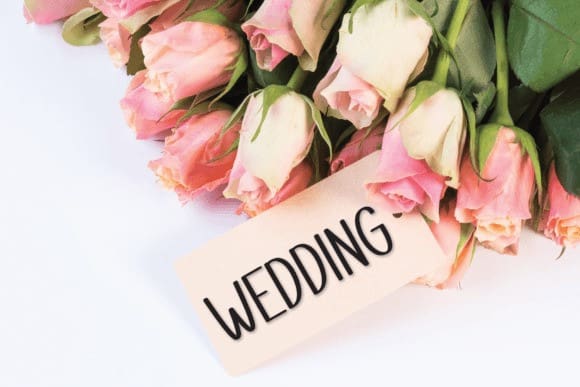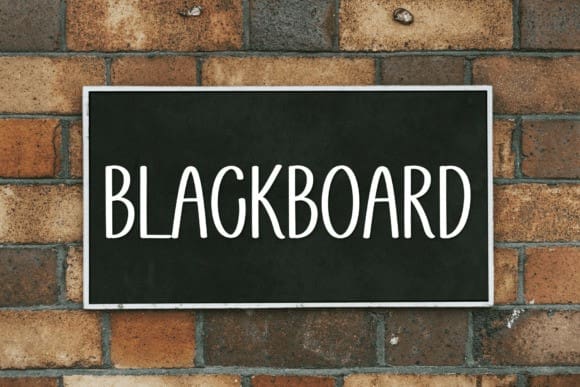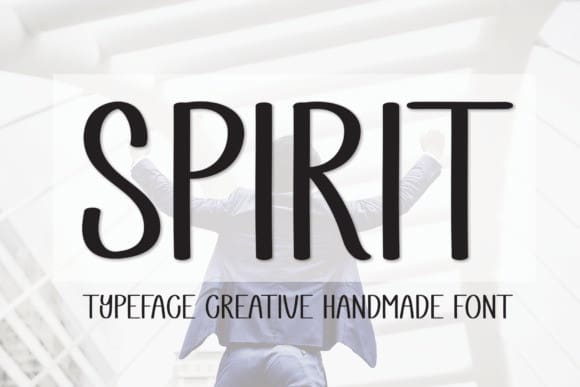
Spirit Hand Font
Spirit Hand Font, is a cool and relaxed handwritten font. This versatile font has a wide spectrum of applications ranging from greeting cards to headlines and is guaranteed to add a neat and natural feel to your next project!